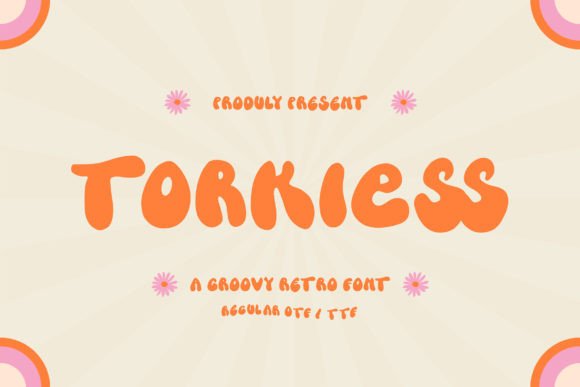
Torkless Font
Unleash the captivating essence of the past with "Torkless," the ultimate groovy retro font that transports your designs to an era of funk and charm. Designed to evoke the playful nostalgia of the bygone era, "Torkless" masterfully captures the essence of groovy designs, bringing a fresh and vibrant touch to your projects.
Step into a world of vintage branding, nostalgic posters, and throwback graphics with the enchanting allure of "Torkless." Each meticulously crafted character dances across your designs, infusing them with a retro charm that commands attention. Whether you seek to create funky album covers, disco-inspired logos, or colorful event invitations, "Torkless" becomes the perfect partner for your creative journey.
Immerse yourself in the world of retro revival as "Torkless" captivates your audience with its groovy and vibrant style. Elevate your social media content to new heights, captivating followers with eye-catching visuals that exude the charm of yesteryears.
Dive into the depths of nostalgia with "Torkless," a font that breathes life into your designs, connecting them to the heartbeat of the past. Experience the pure joy of creating designs that resonate with a timeless aesthetic, effortlessly evoking the spirit of the groovy era.
Embrace the magic of "Torkless" and let your designs groove to the rhythm of the past, leaving an unforgettable impression on all who behold them.